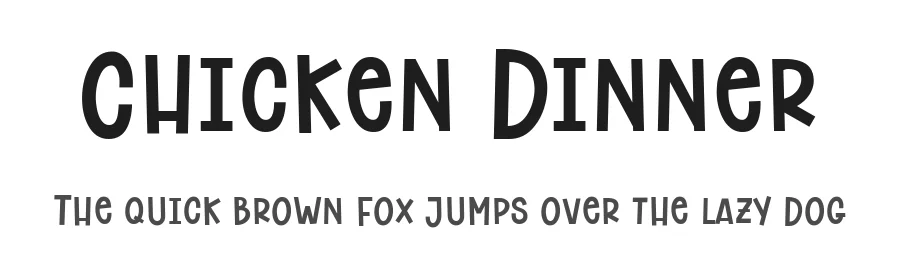
About Sunbeam Font
| Designer | Risma Ramawi |
Sunbeam Font is a decorative font that shines as a display or heading face. Pair it with a clean sans-serif or serif font for body text β the contrast creates a clear hierarchy while the two styles stay balanced and easy to read.
Sunbeam Font